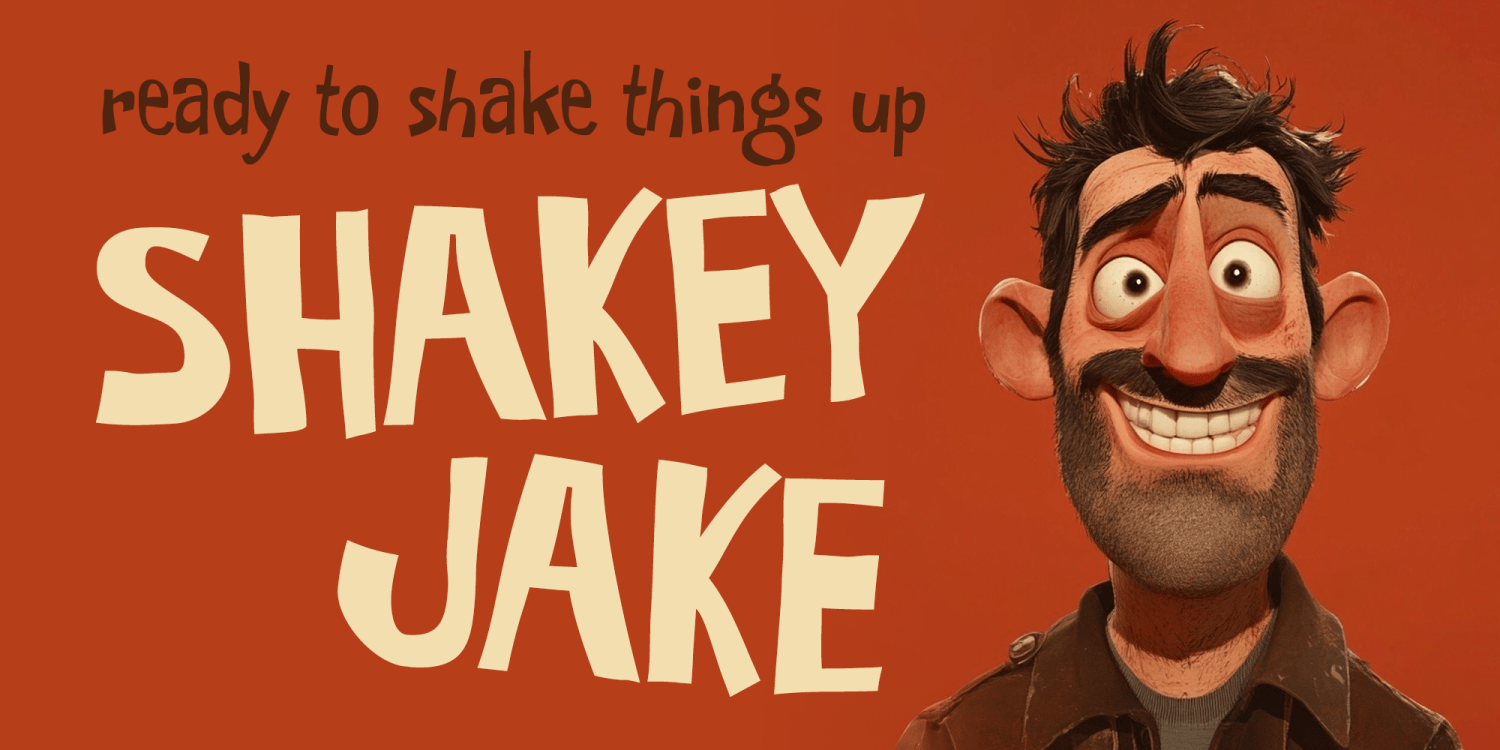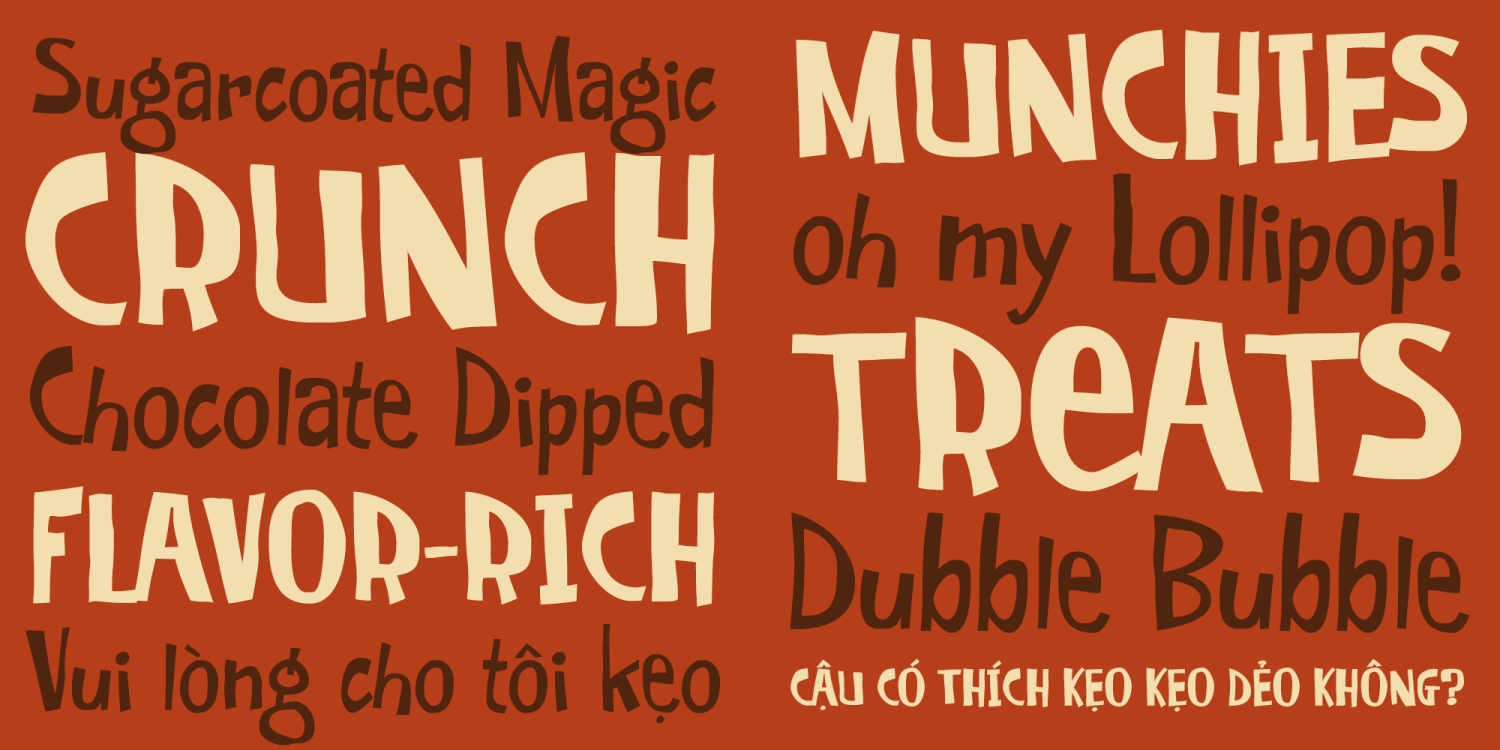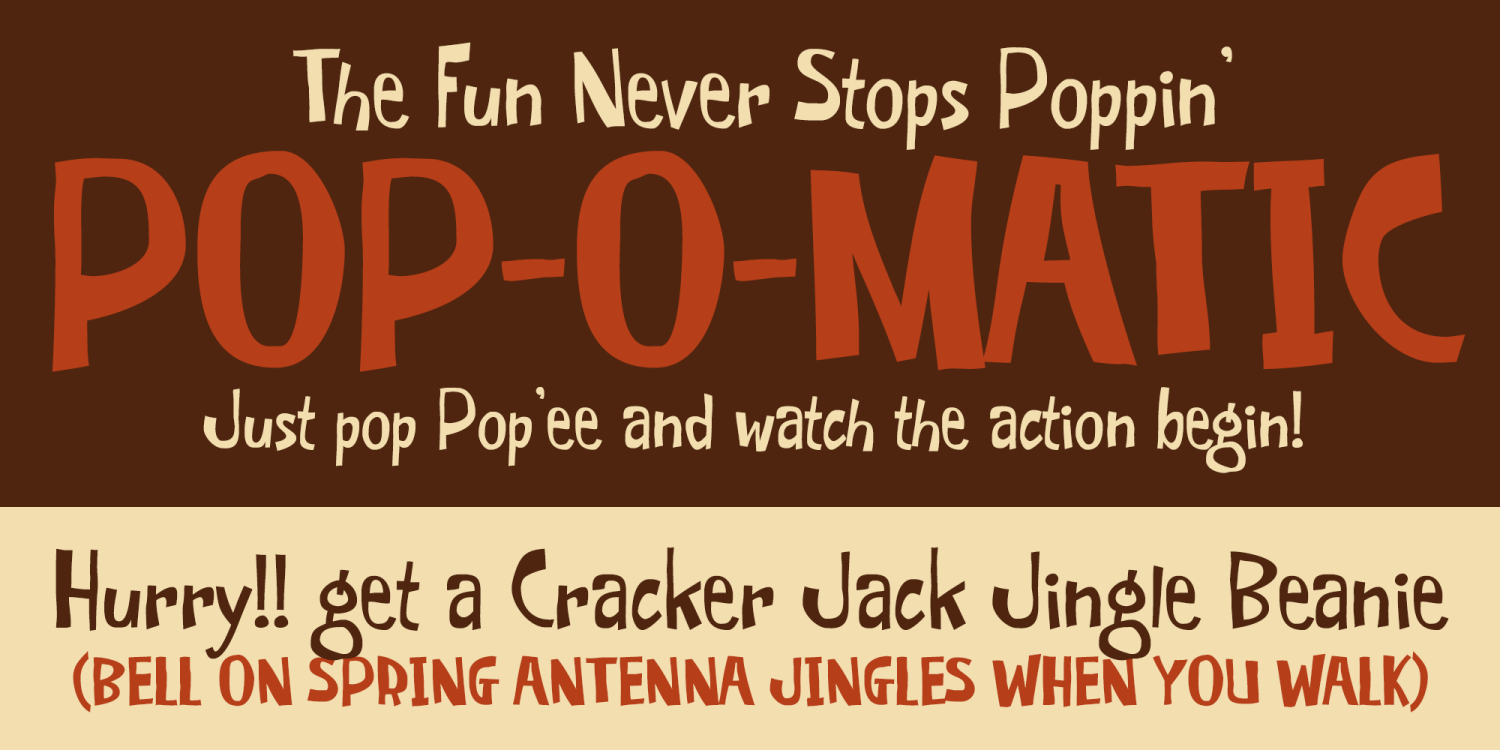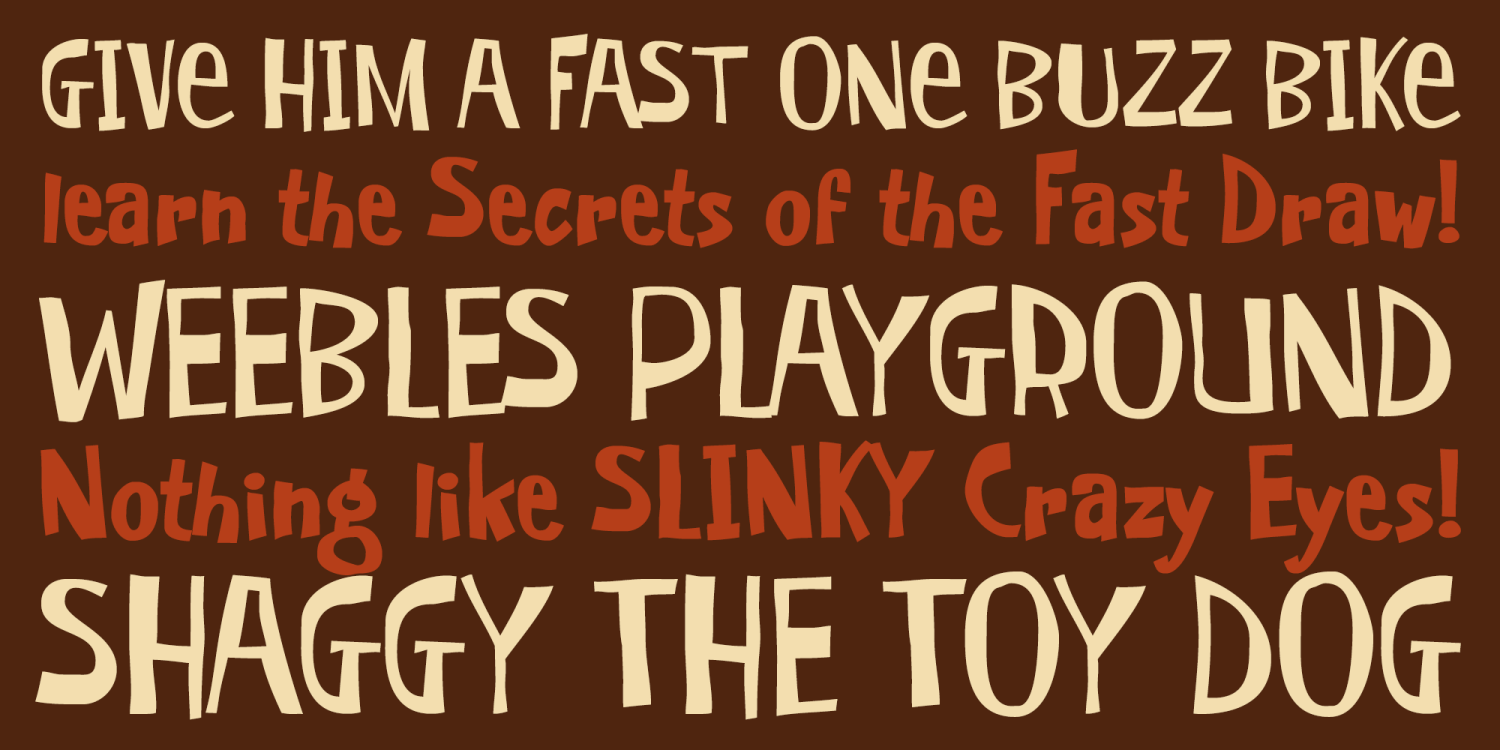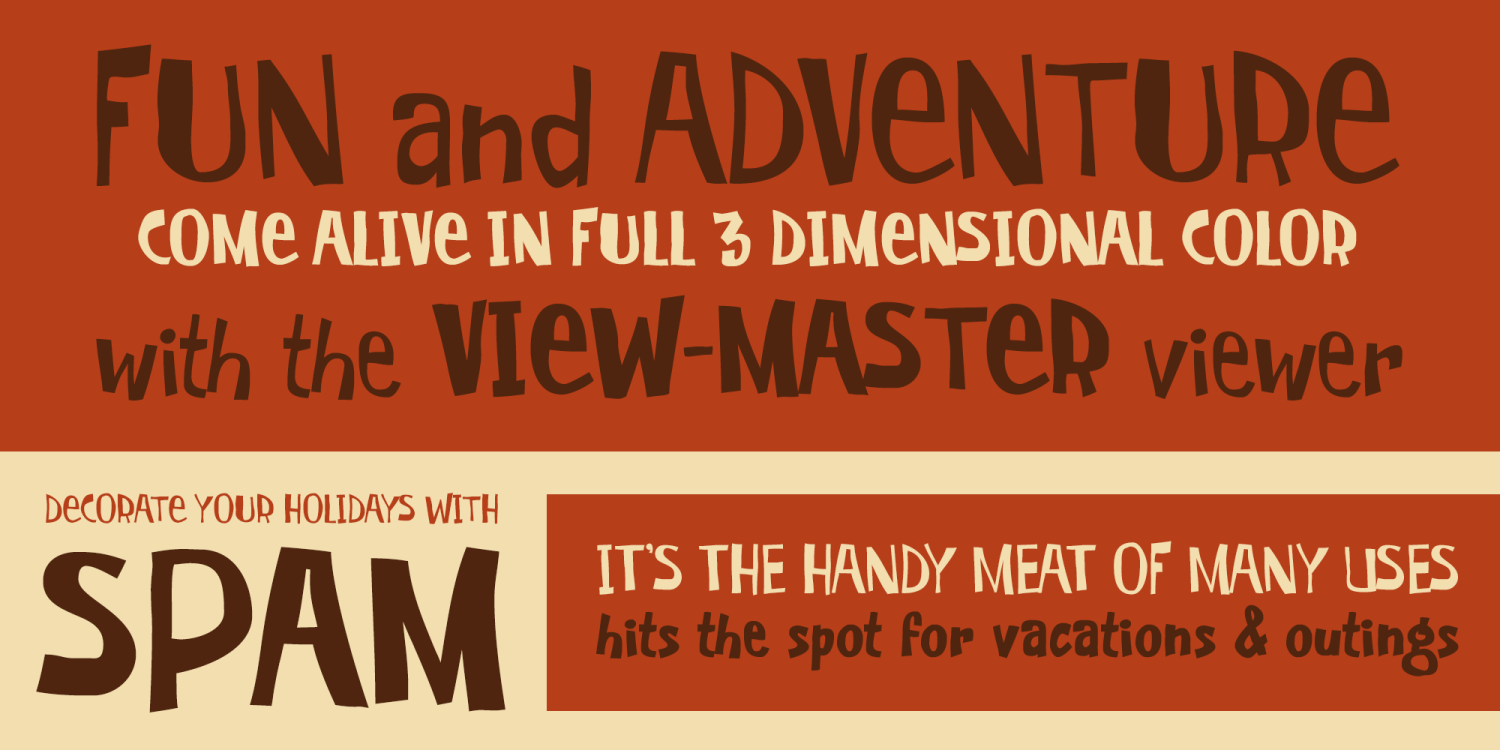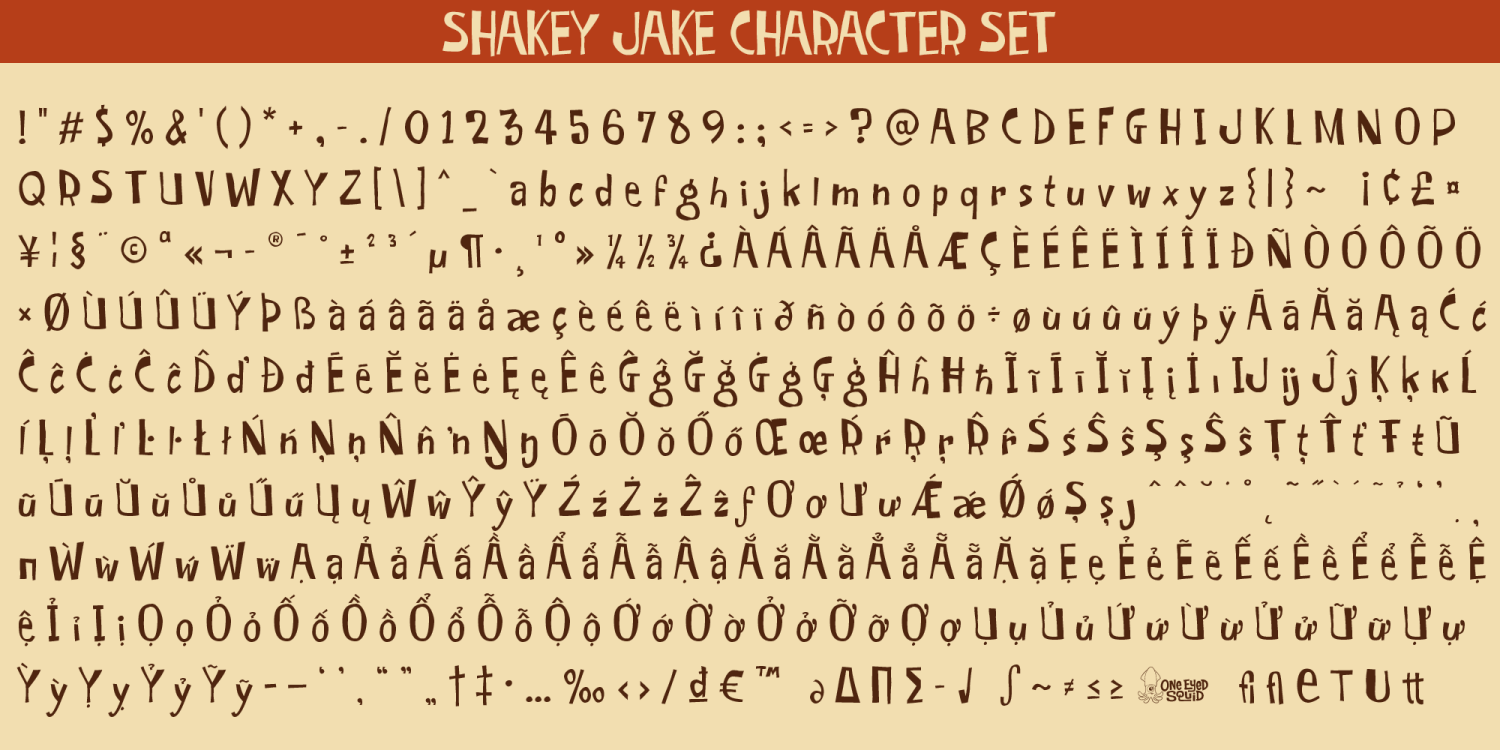
Shakey Jake
Shakey Jake is a wobbly hand-drawn display font with wild energy, jaggy character, and a playful offbeat spirit. Its lively, irregular letterforms bring a loose, animated feel to designs that want to look quirky, expressive, and full of handmade personality. Available in Regular and Bold styles, Shakey Jake offers flexible options for headlines, posters, branding, packaging, greeting cards, social media graphics, and other creative projects that benefit from a fun, unconventional typographic voice. Includes extended Latin language support, including Vietnamese.
Shakey Jake includes 486 glyphs.